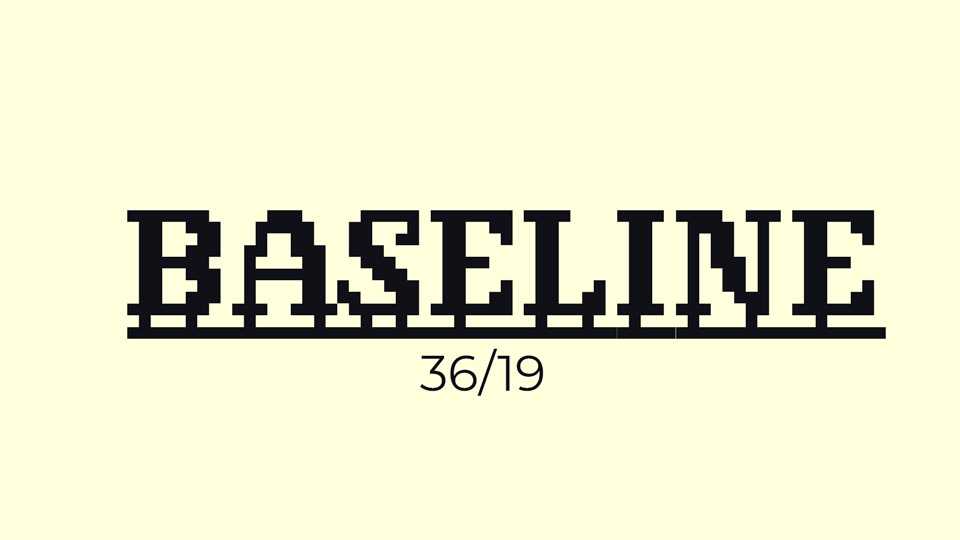
Download Baseline font, a display typeface for laser-cut words. The letters are connected so that the final product was a single piece, and it has a flat bottom so it could stand upright without tilting or tipping over.
Designer: Justin Penner